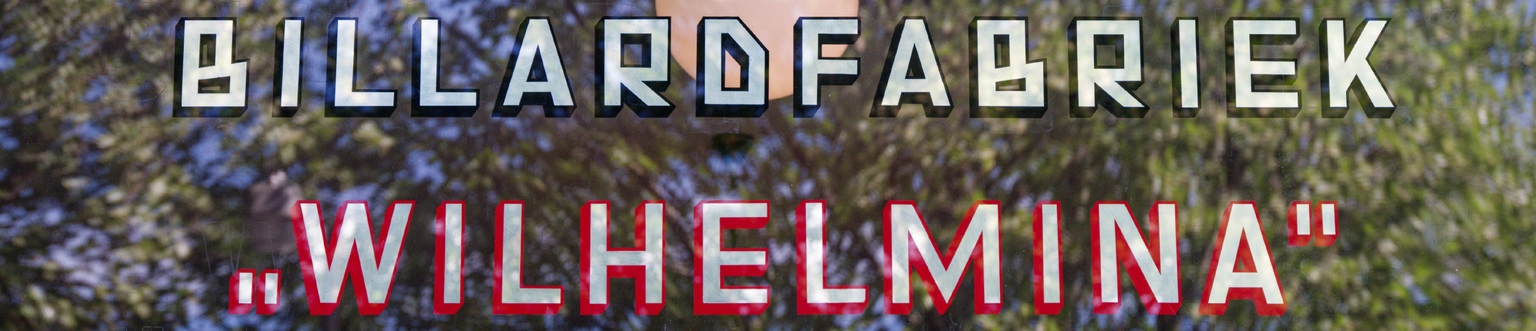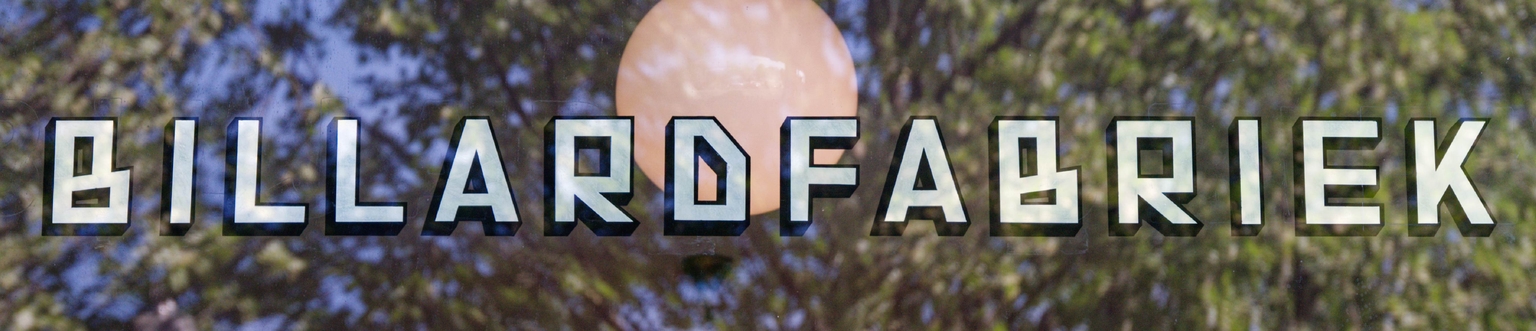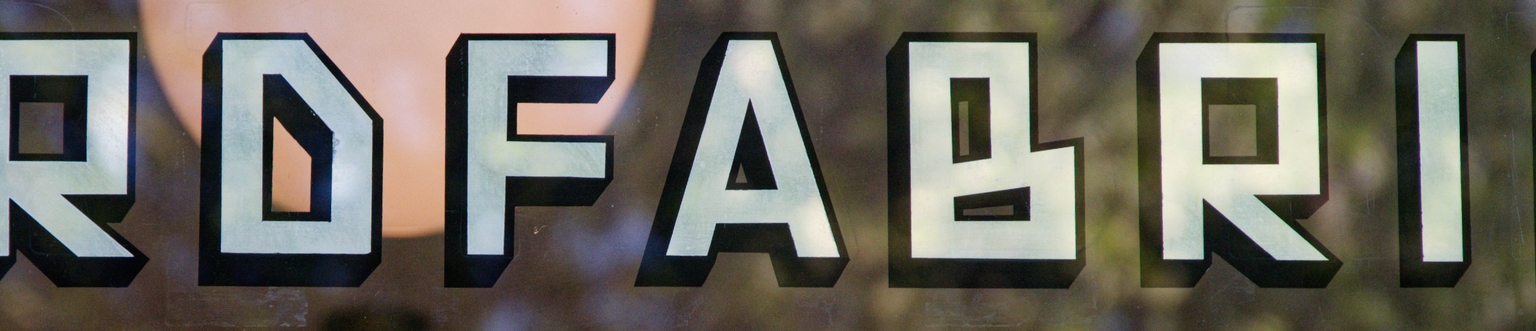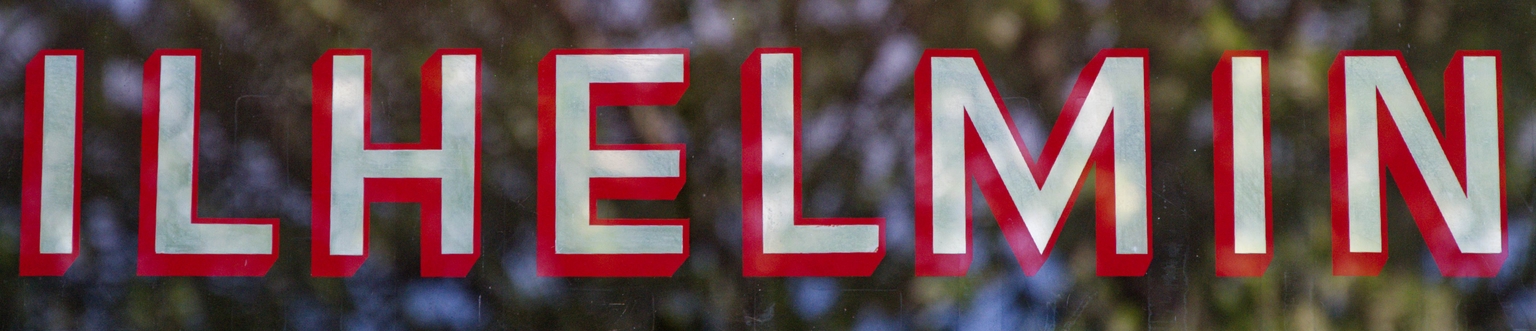
Wilhelmina
Wilhelmina is a font inspired by the lettering used on the façade of the Billardfabriek Wilhelmina (Billiard Factory) in Amsterdam. This style of lettering, which has almost disappeared today, once identified the windows of numerous businesses in the Dutch capital.
Piet Schreuders, in his essay “Letters van Glas” published in the 1997 edition of his book Lay in Lay Out, documented this style and highlighted its originality and local character. In further research, Schreuders was able to identify Jacques de Rooy (1927–2016), J.A.H.T. Buijs, Romeo (Jacq. Duin), J. van ‘t Hull, and ‘Jonk’ as the sign painters who spread this style throughout the city.
In 2015, Ramiro Espinoza began working on a revival of the style. The design remained unpublished for years because it didn’t align with the style he wanted for his foundry. The launch of Brutal Types presented the perfect opportunity to complete the design and finally release it.
This font is well-suited for use in museum communications, architecture books, electronic music festivals, posters, artist websites, campaigns, or any design project tied to Amsterdam—or any project that calls for a bold and unconventional aesthetic.